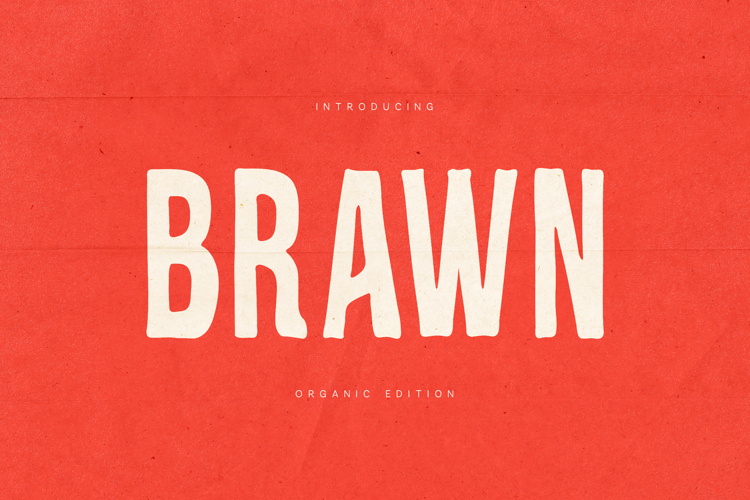
Brawn Organic Condensed Display Font
Brawn is a bold, condensed display typeface with raw organic character and vintage print energy.
Designed for impact, Brawn combines tall proportions with subtly irregular edges that give it an authentic handcrafted feel — like classic screen-printed posters and retro packaging.
Its strong vertical rhythm makes it perfect for bold headlines, branding systems, and statement typography that needs personality without losing clarity.
Why Designers Love Brawn:
• Condensed tall structure = maximum headline impact
• Organic irregular edges = authentic vintage texture
• Clean readability even at large scale
• Strong multilingual support
• Works beautifully in branding & packaging
Perfect For:
• Poster design
• Branding systems
• Streetwear graphics
• Craft packaging
• Editorial headlines
• Album covers
• Social media campaigns
• Bold logo typography